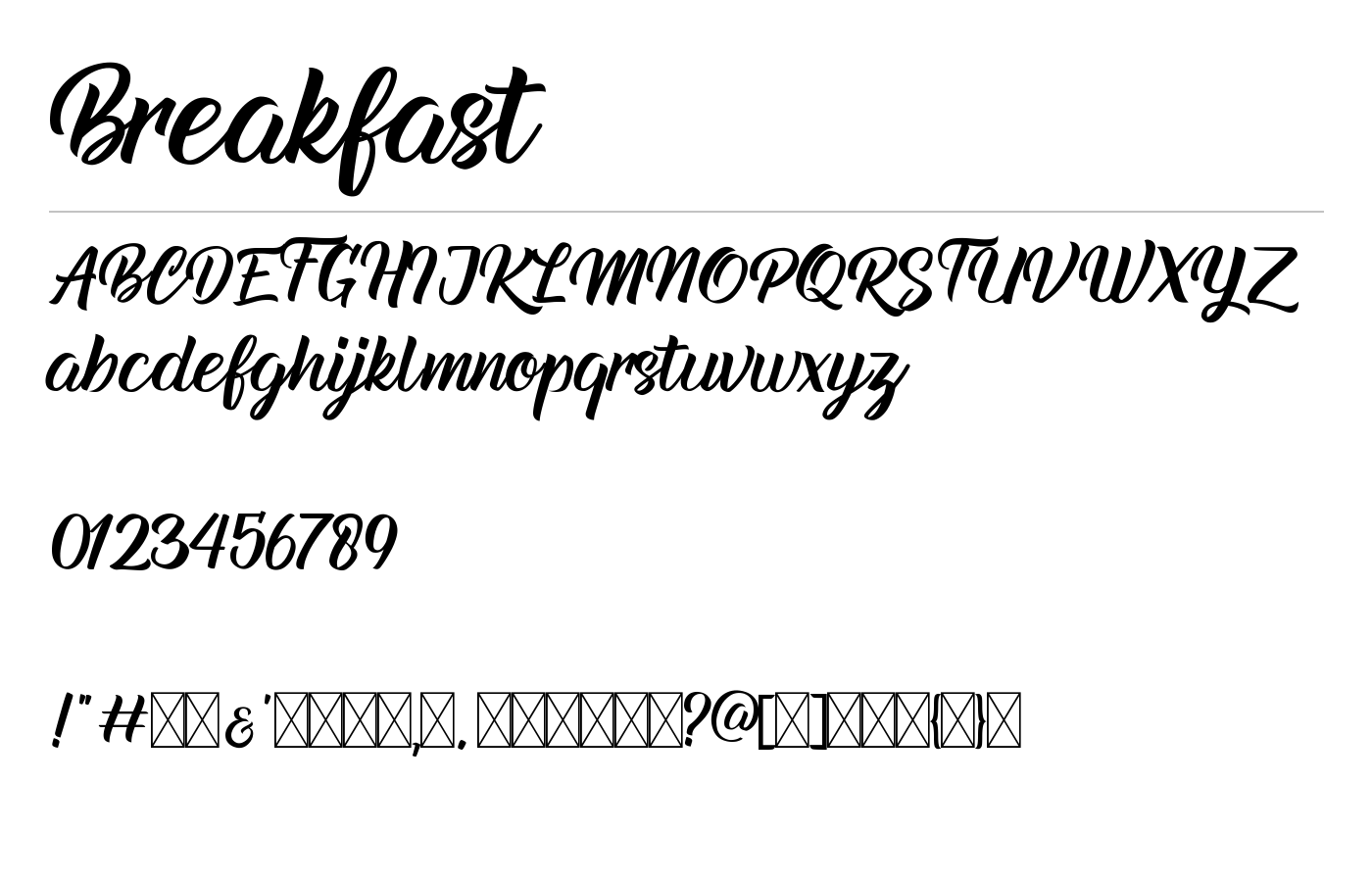
Breakfast Font is a lively and elegant script typeface characterized by its smooth, flowing strokes and playful yet refined letterforms. With a moderate weight and medium contrast, it brings a modern handwritten charm that suits creative branding, invitations, and stylish headlines. Its casual sophistication makes it perfect for projects that want to convey warmth, personality, and a touch of elegance.
Breakfast Font
About Breakfast Font